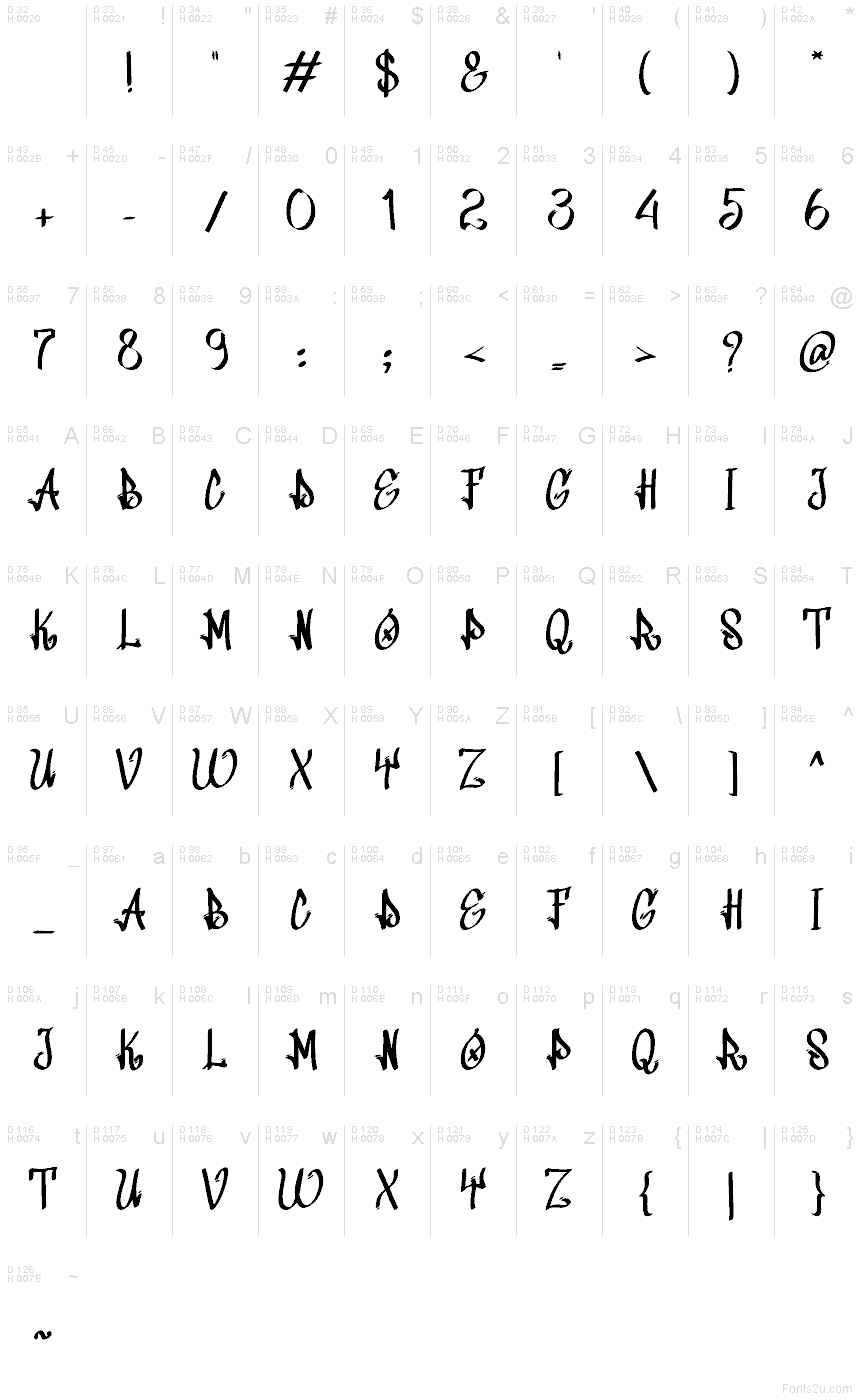
Grafitti New Year
Grafitti New Year font by Studio Hello Good is a free graffiti-style font with a condensed style. This authentic urban-looking set features artistic flair and modern street culture influence. Its rebellious vibe, unusual letter structures, and overall playful appearance make it readable yet exclusive. If you’re looking for originality and an innovative item to use in projects, give Grafitti New Year a try!